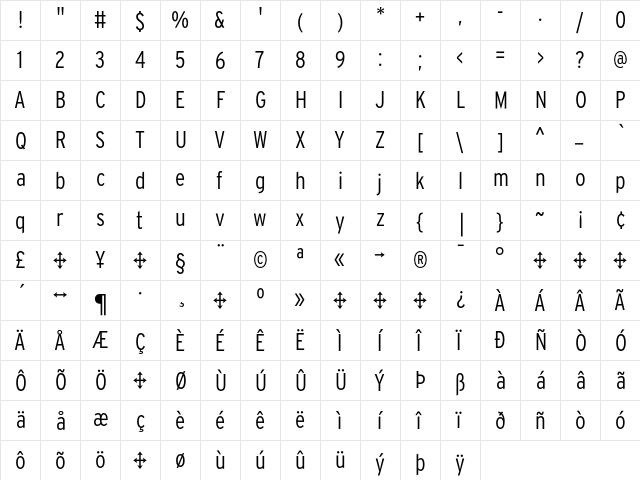
Interstate LightCondensed
Design Context for Interstate Typeface
Interstate takes a measured approach to typography — its balanced proportions and neutral character make it a reliable workhorse for both digital and print work. The delicate stroke weight brings airiness and refinement to layouts. Its narrow stance lets it pack a punch even in space-constrained designs.